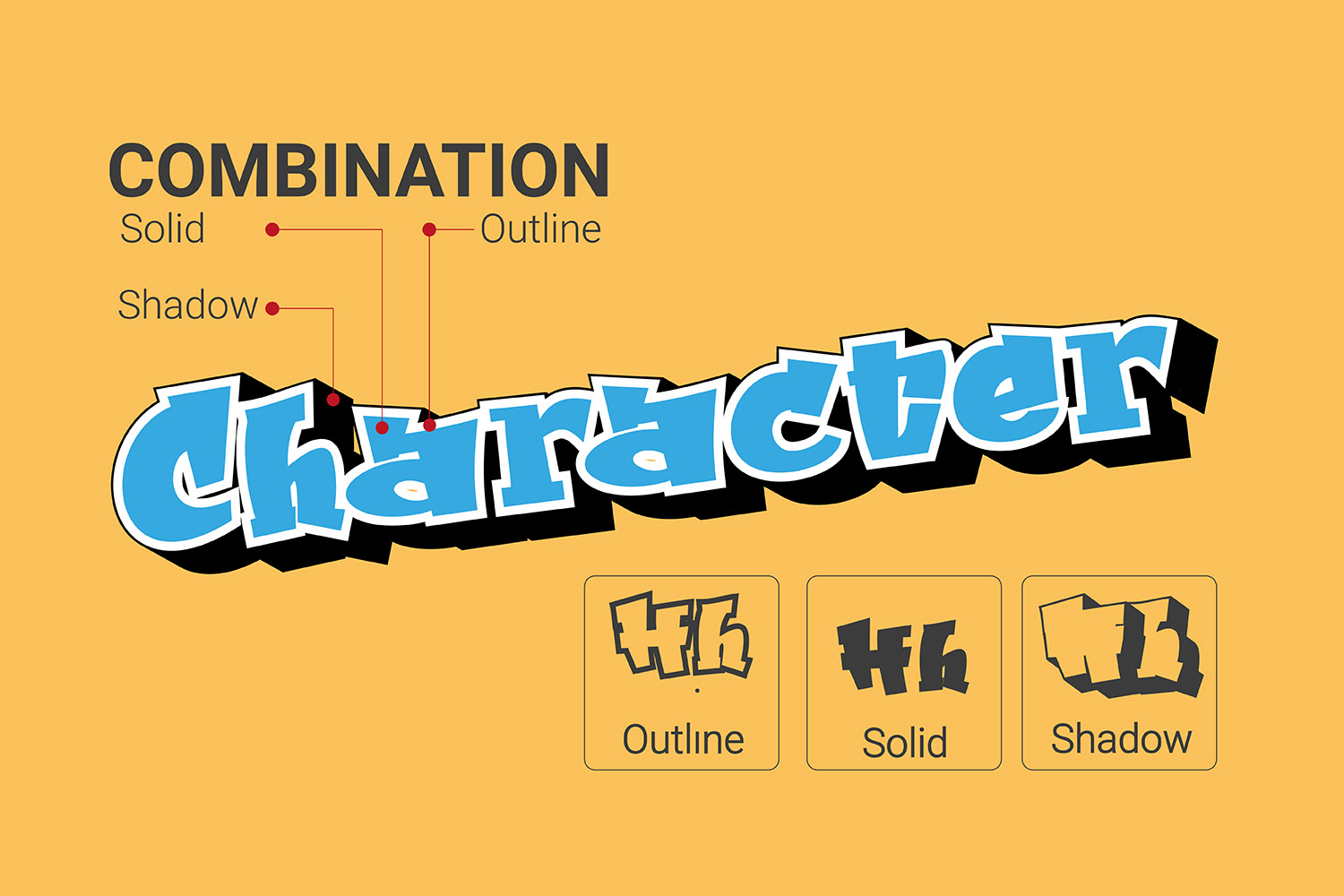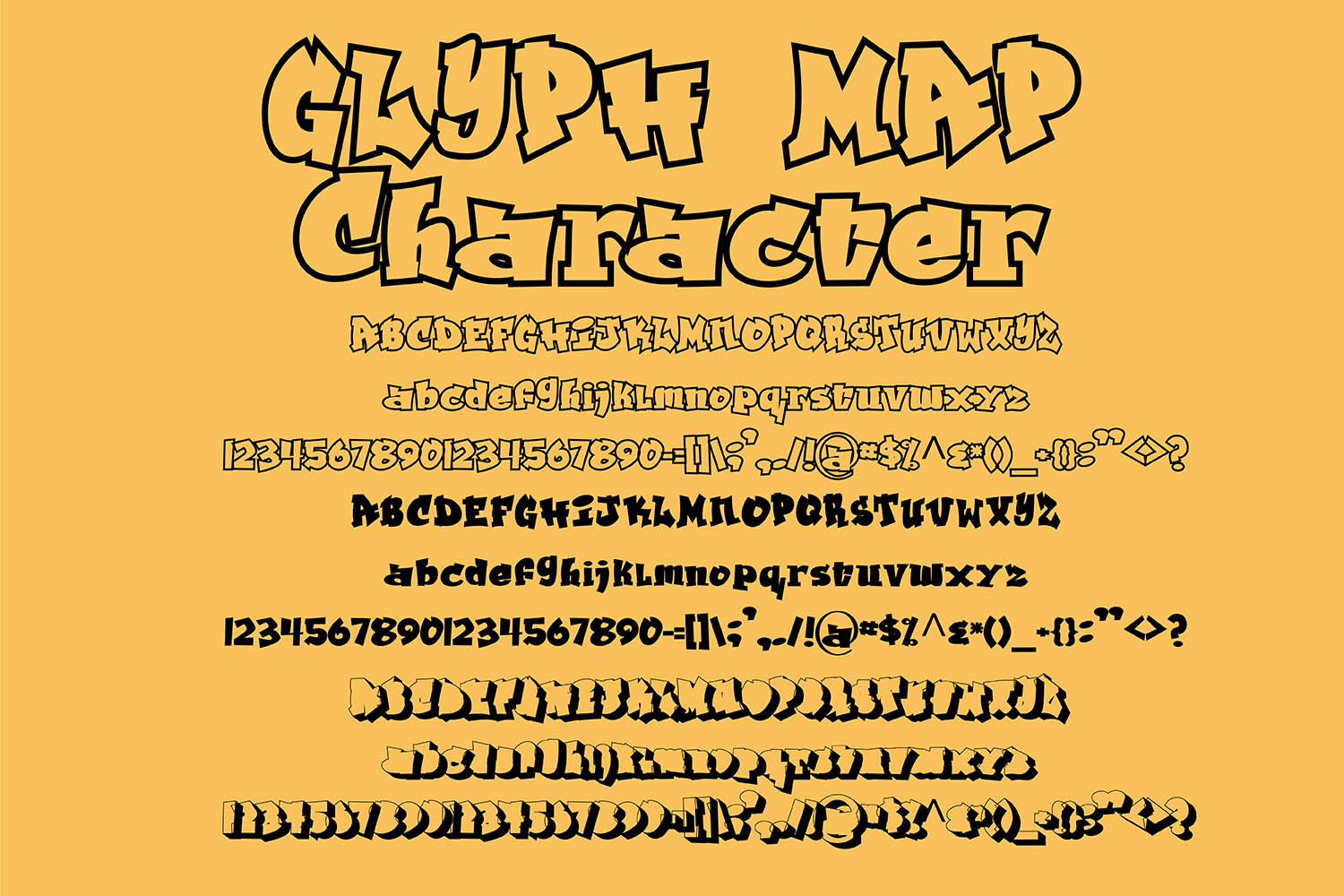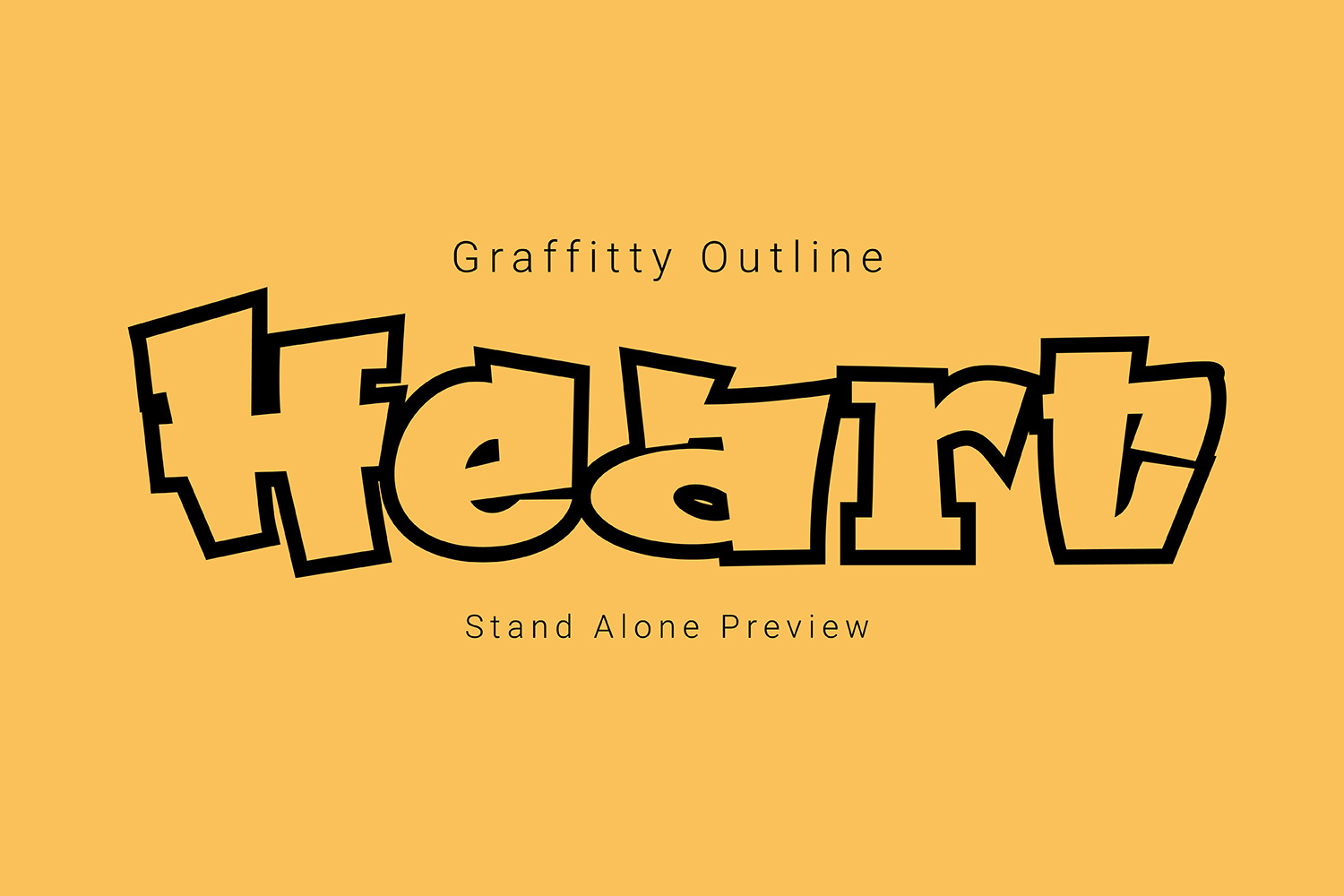
Ghaile Graffiti Regular Font
The ‘GHAILE Grfaity’ is a graffiti style handwritten font. Its come with three font to complate your text, they are solid, ouline and shadow version.The mix of these 3 version will show you the real grafitty style. The Outline version is fix kerning as a singgle text, its good for your craft design. if you use solid version you have to set glyp tracking to -70 (A/V:-70). please write me ig you need support.